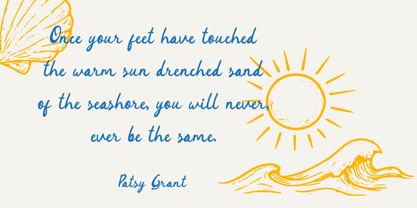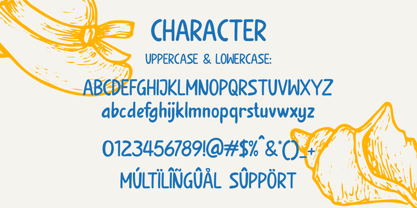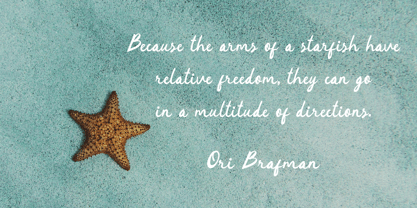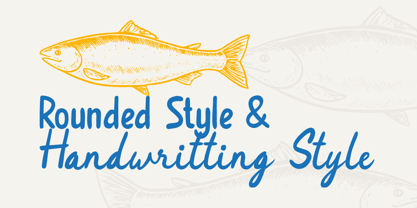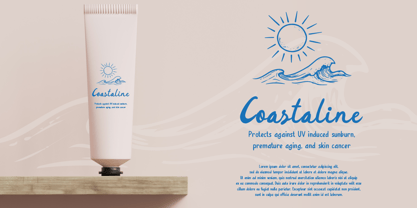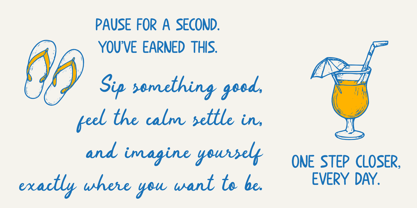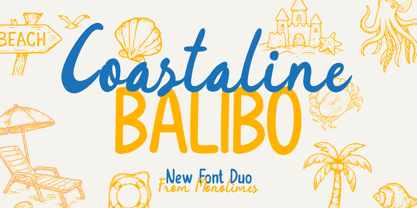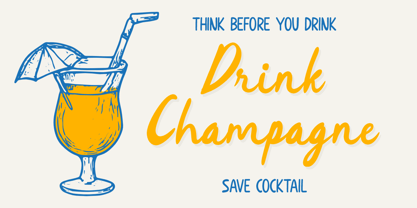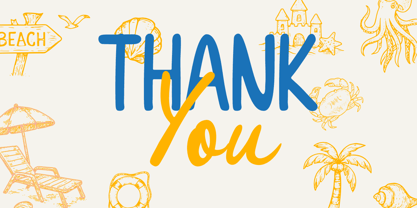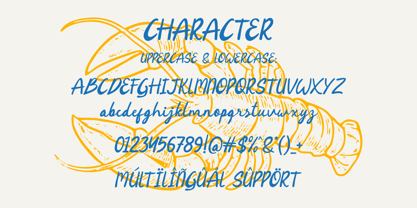
Coastaline Balibo
by Monolimes
The Coastaline Balibo Font Family was designed by Brainy Javanika Putra and published by Monolimes. Coastaline Balibo contains 2 styles and family package options. More about this family
Coastaline Balibo is a casual handwritten script font duo that blends relaxed coastal vibes with clean modern simplicity. The script style features smooth, flowing strokes with a natural hand-drawn feel, while the paired sans-serif adds structure and balance. Inspired by beach life and tropical aesthetics, this font combination is perfect for summer branding, travel content, packaging, social media, and lifestyle designs. It delivers a friendly, fresh, and approachable tone while maintaining versatility for both playful and professional layouts.
Designers: Brainy Javanika Putra
Foundry: Monolimes